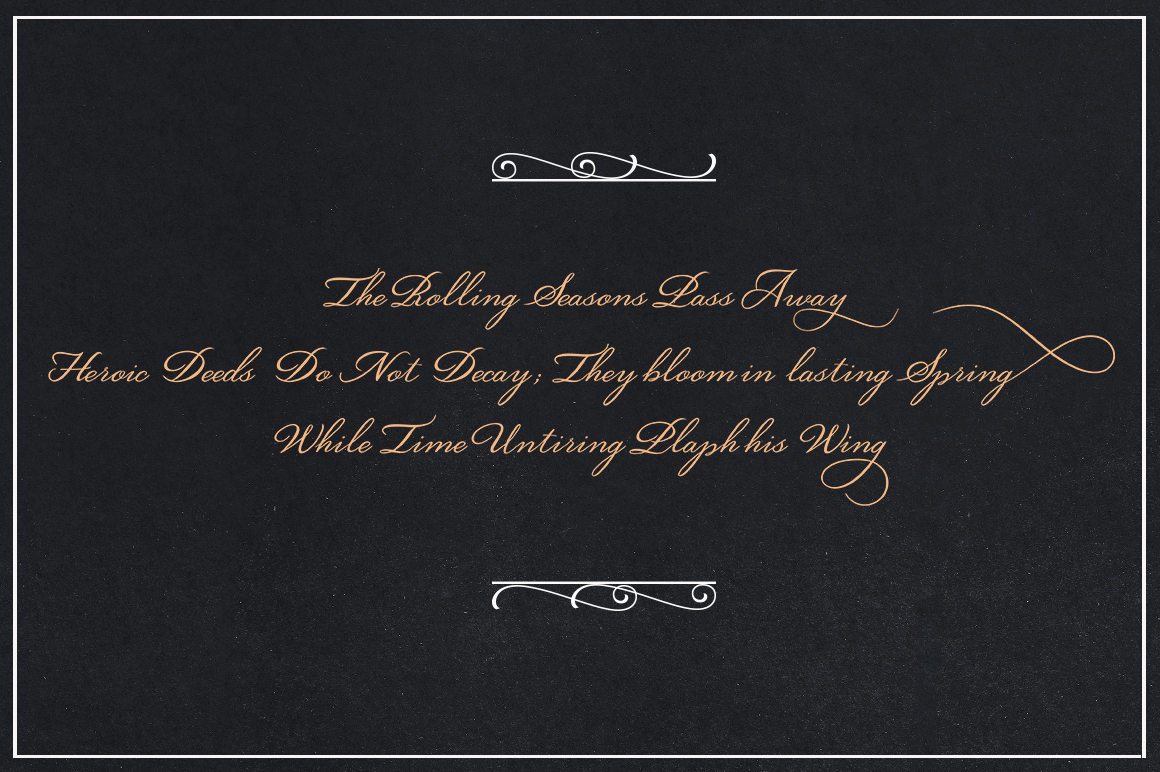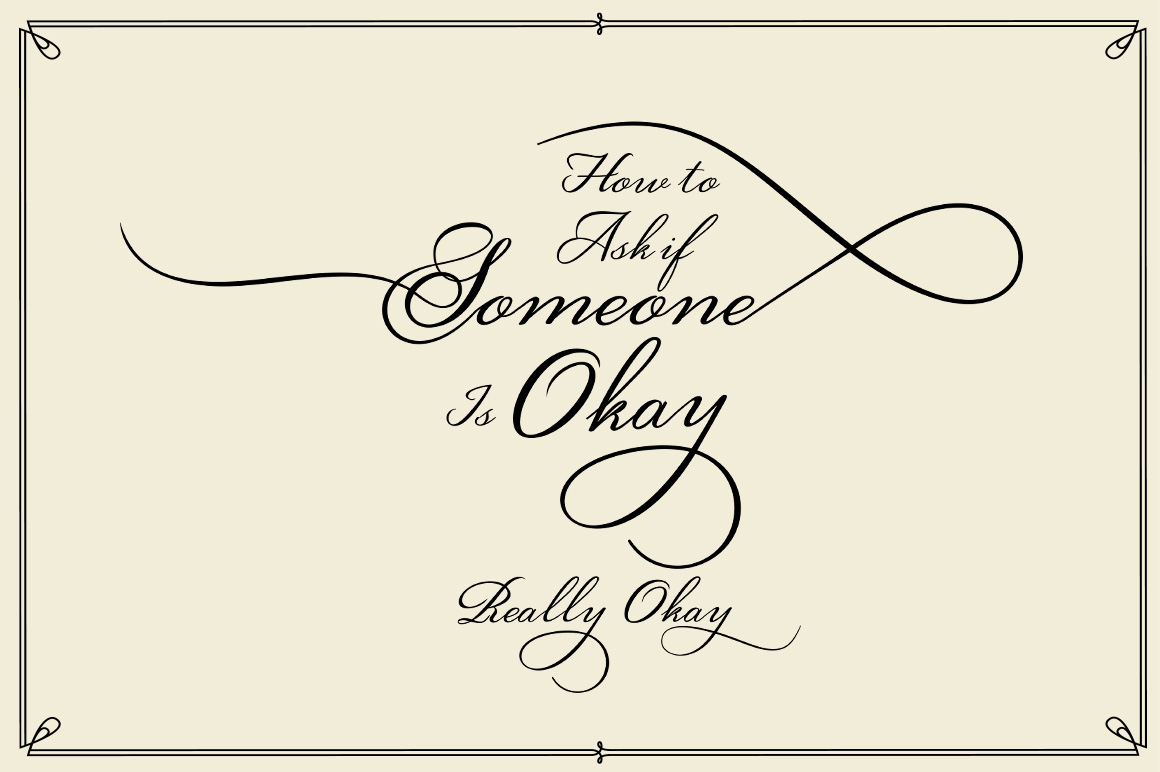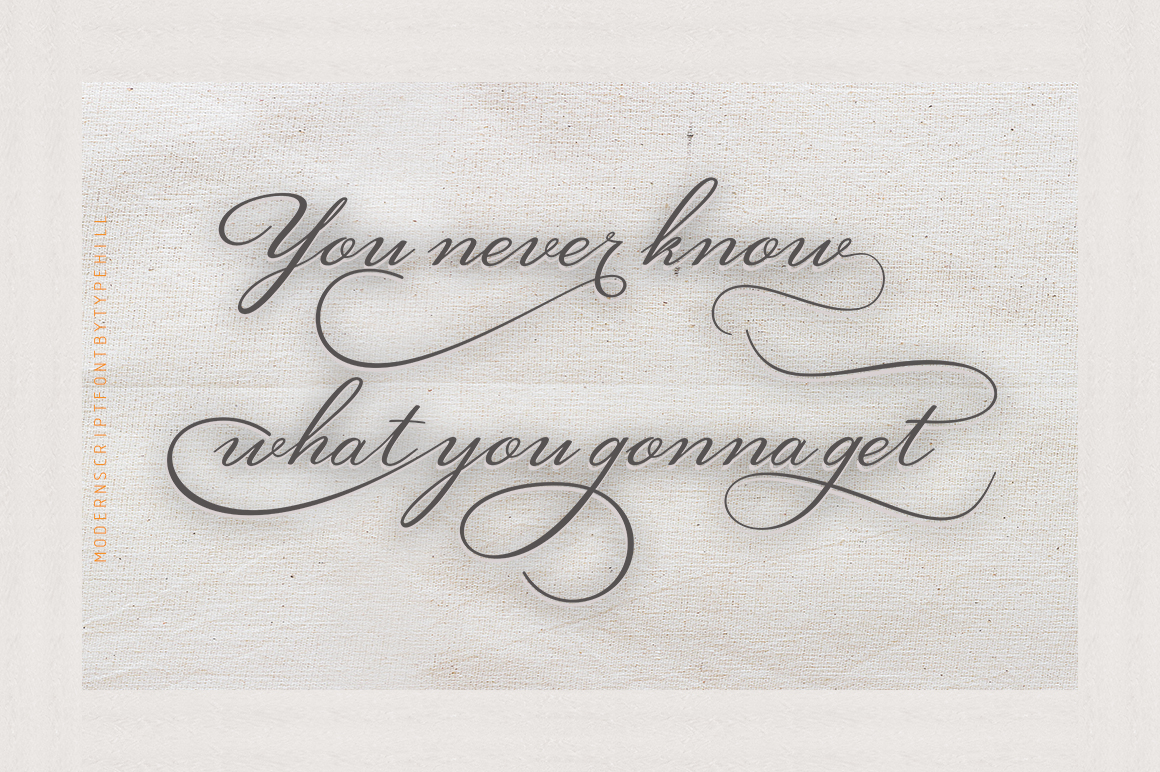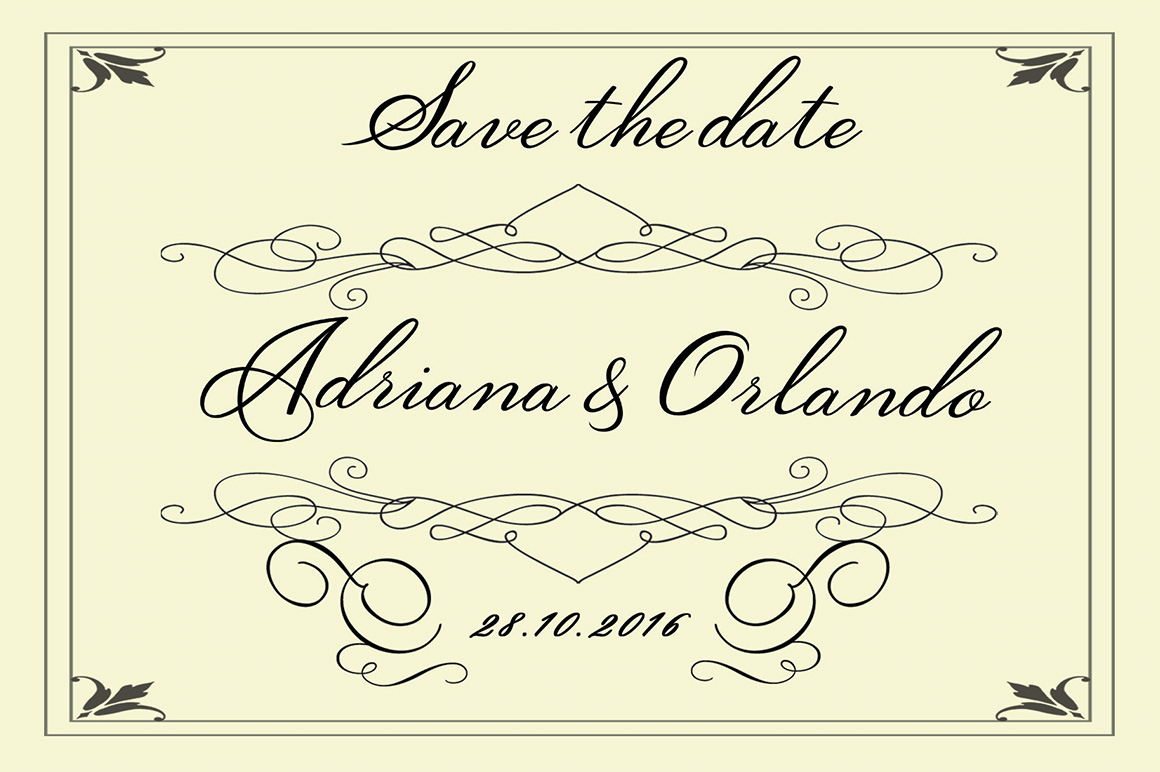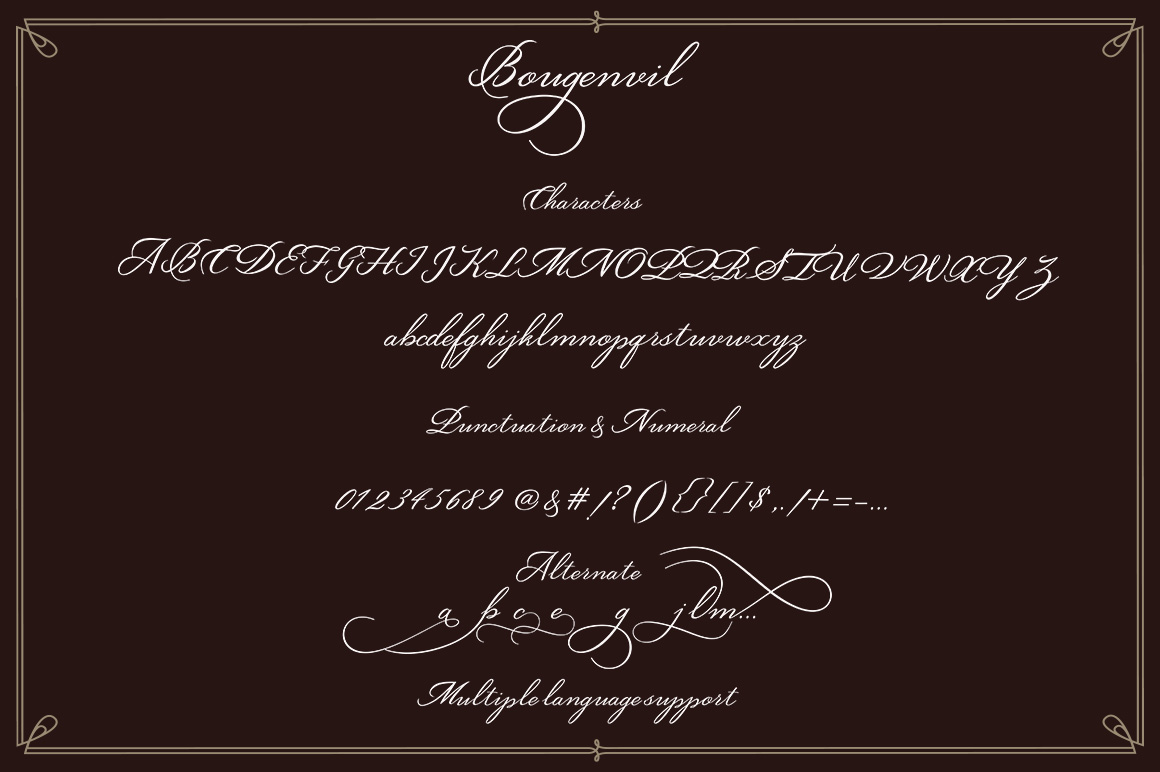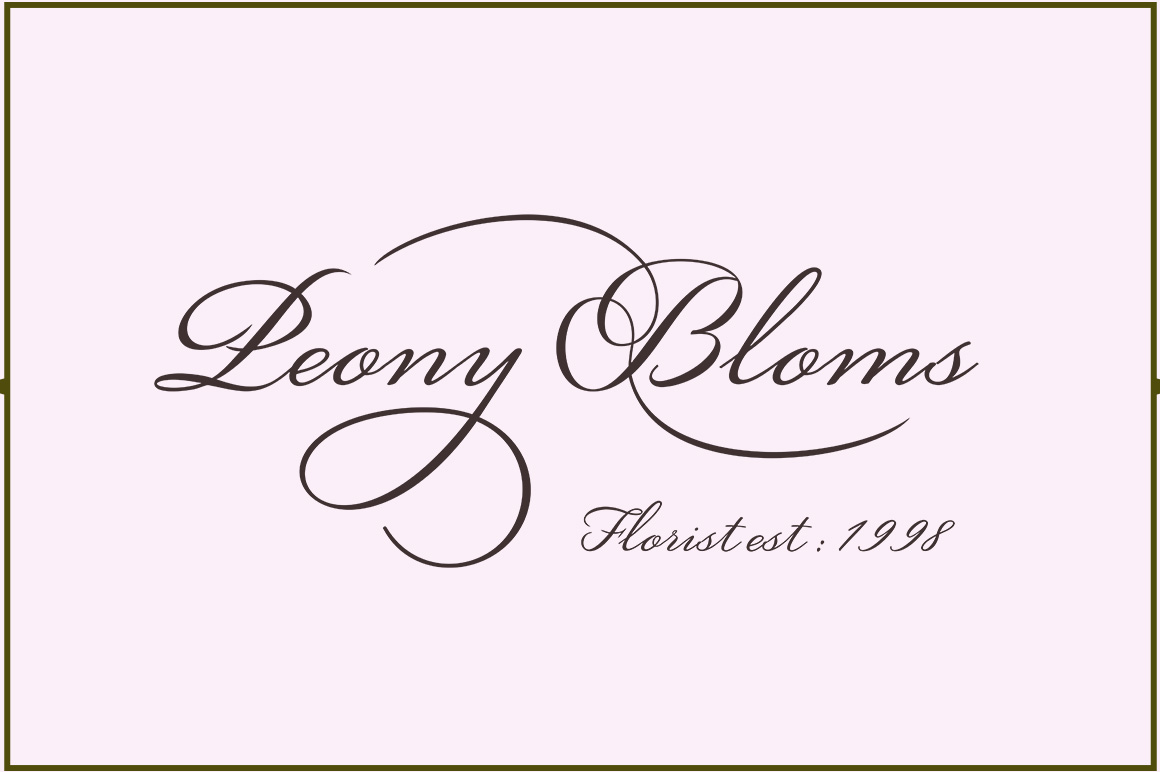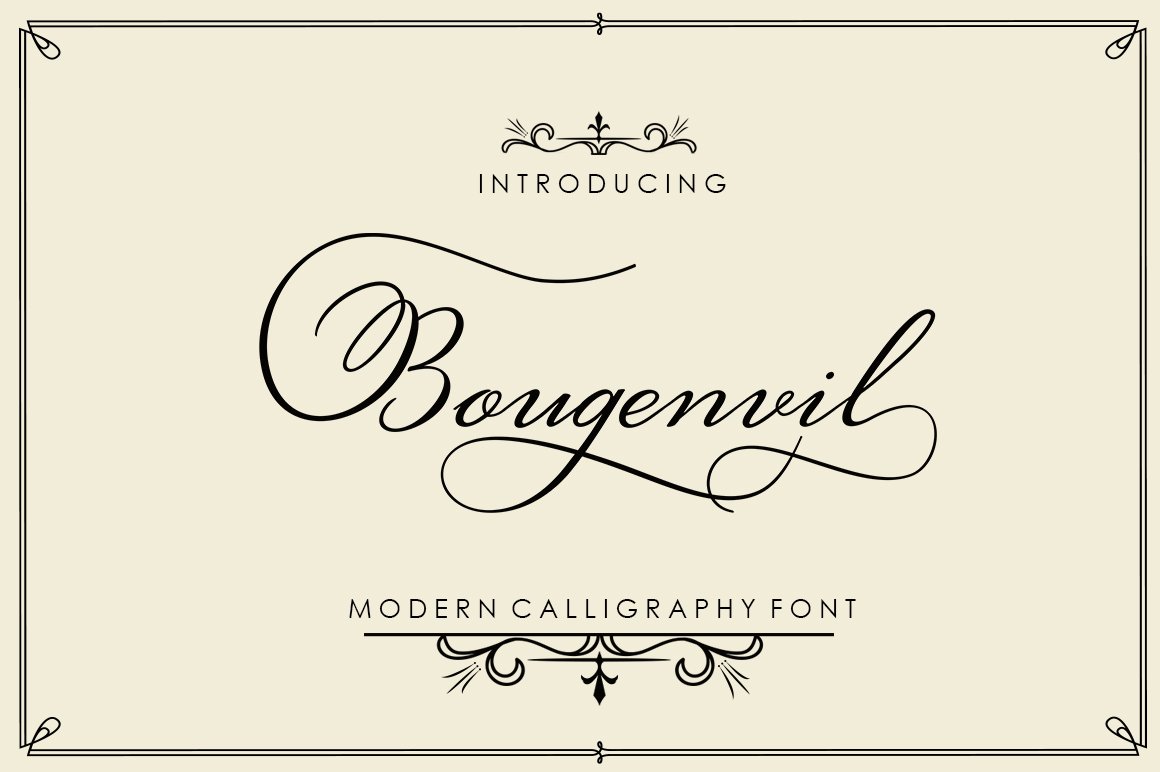
The Allure of Beautiful Typography: Introducing the Bougenvil Font
As a designer, there’s nothing quite like the thrill of creating a stunning visual project that leaves a lasting impression on your audience. You pour over every detail, from color schemes to typography, until the final result is nothing short of breathtaking. And then, it hits you – the perfect font that elevates your design to new heights. For many designers, this moment is elusive, but with the Bougenvil Font, that magic can become a reality.
The Bougenvil Font is a calligraphy script that combines the elegance of copper calligraphy with the charm of handlettering. Its beautiful alternative characters make it a standout choice for designers looking to add a touch of sophistication to their projects. Whether you’re working on a wedding invitation, a luxury brand brochure, or a high-end fashion campaign, the Bougenvil Font is the perfect tool to convey style, elegance, and glamour.
With its feminine, sensual, and simple design, the Bougenvil Font is a valuable addition to any designer’s toolkit. Its readability makes it perfect for a wide range of applications, from digital media to print materials. Whether you’re a seasoned pro or just starting out, the Bougenvil Font is sure to become your go-to choice for creating stunning, professional-looking designs that leave a lasting impression.
- Unique Characteristics: Bougenvil Font features a unique blend of modern and vintage elements, with intricate details and ornate flourishes.
Bougenvil Font Review
At first glance, Bougenvil Font seems to be a stylish and modern addition to any design project. ✨ I appreciate the clean lines and subtle flair that gives this font a unique touch. It’s versatile enough to be used for both headings and body text, making it a great choice for creative projects.
However, I’ve noticed a few limitations. ⚠️ The font’s readability can be affected by the size and style of the text. If not used correctly, it can become overwhelming or difficult to read. Additionally, some characters may appear slightly inconsistent or irregular, which can be distracting in certain contexts.
Key Points:
- ✨ Unique style and flair make it a great choice for creative projects.
- ✨ Versatile and can be used for headings and body text.
- ⚠️ Readability can be affected by text size and style.
- ⚠️ Some characters may appear inconsistent or irregular.
Overall, Bougenvil Font is a solid choice for designers who want to add a touch of modernity to their projects. While it has its limitations, it’s a great option for those who are willing to experiment and adjust their design accordingly.
Getting the Most Out of Bougenvil Font
To get the most out of Bougenvil Font, use it in designs where you want to add a touch of elegance and sophistication. It pairs well with minimalist designs and is ideal for use in headings, titles, and logos.
Bougenvil Font is commonly used in:
– Fashion and lifestyle branding
– Luxury product design
– High-end marketing materials
– Elegant website headers and footers